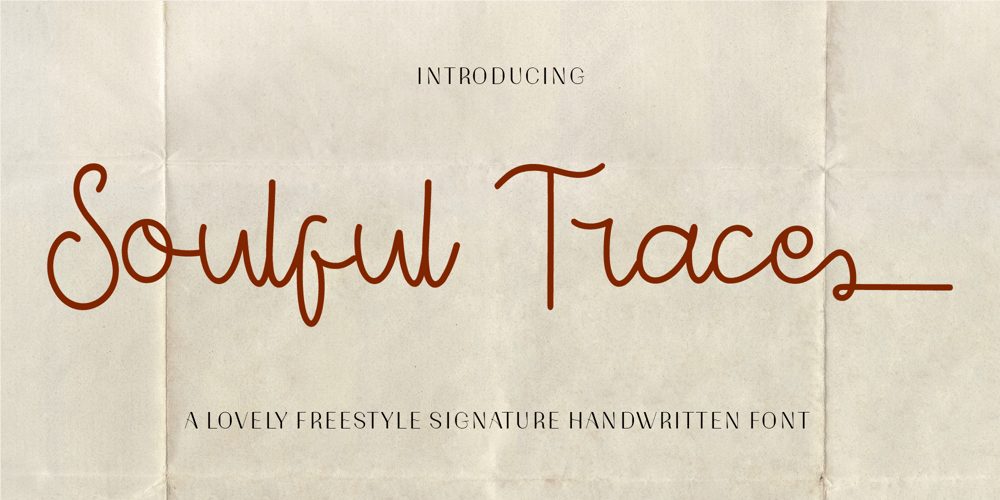
CF Soulful Trace Font Family was designed by Gilang Mei Nugraha, Frederik Aristaputra and published by Creatifont Studio. CF Soulful Trace contains 2 styles and family package options. Soulful Traces is a stylish freestyle signature font featuring a charming monoline handwritten style. The font exudes a natural and effortless elegance, making it perfect for designs that require a personal touch and a sense of authentic sophistication. Its clean, flowing strokes offer a balance between casual charm and professional refinement, giving the impression of a graceful, handwritten signature. Designed with thin yet steady lines, Soulful Traces delivers a seamless blend of modern simplicity and timeless appeal. The font’s lovely curves and fluid connections evoke a sense of warmth, making it ideal for branding, wedding invitations, logos, and other designs that demand a harmonious, stylish look. Whether you’re creating heartfelt notes or crafting refined visual identities, Soulful Traces captures the essence of personalized artistry and elegant minimalism.A SUMMARY OF WHAT’S INCLUDED:Standard Character A-Z, a-z, 0-9, Punctuation & symbolsRegular and ItalicMultilingual SupportWorks on PC & MacSimple installationAccessible in Adobe Creative Suite (Ai, Ps, Id, etc.) even work on Microsoft Word.PUA Encoded Characters – Fully accessible without additional design software.🌟If you come across any issues or notice anything we might have overlooked while using this product, please feel free to reach out to us. We greatly value your feedback as it helps us enhance and refine our products. Thank you!